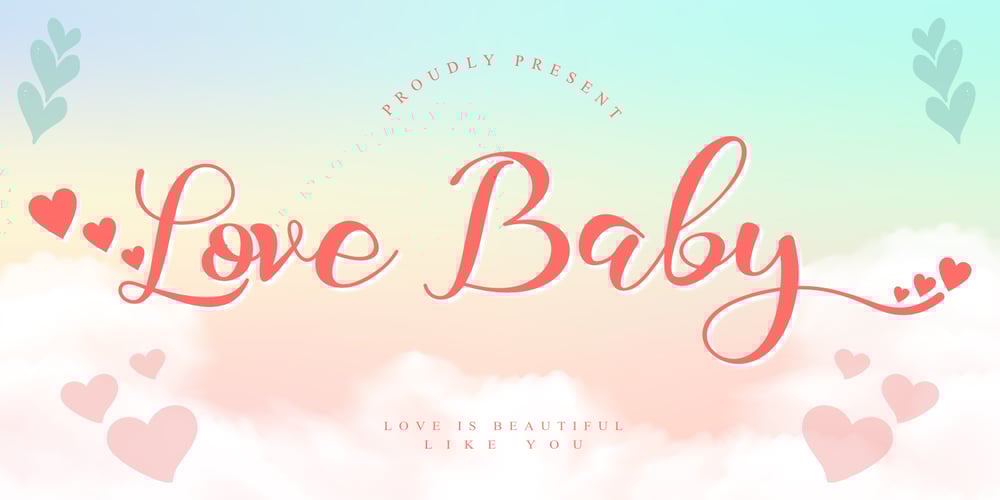
Love Baby Font Family was designed by Stephanus Prabowo and published by Andrey Font Design. Love Baby contains 1 styles and family package options. Love Baby is a cute and flowing handwritten font. Use it to create gorgeous designs!This font is PUA encoded which means you can access all of the glyphs and swashes with ease!